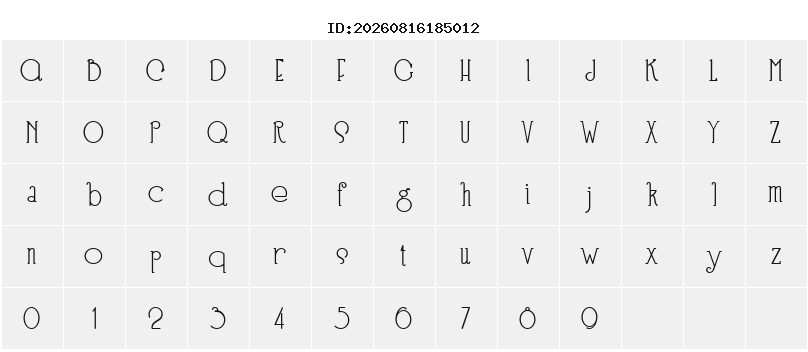
SpeedballNo3 Preview
• Font Name: SpeedballNo3
• Font ID: SpeedballNo3
• Full Font Name: SpeedballNo3
• Version: Version 1.00 8/12/2001
• PostScript Name: SpeedballNo3
• Character Count: 179
About SpeedballNo3.ttf
SpeedballNo3.ttf is a modern, elegant sans-serif font designed for ultimate readability and visual harmony. Perfect for branding, headlines, web design, and print materials.